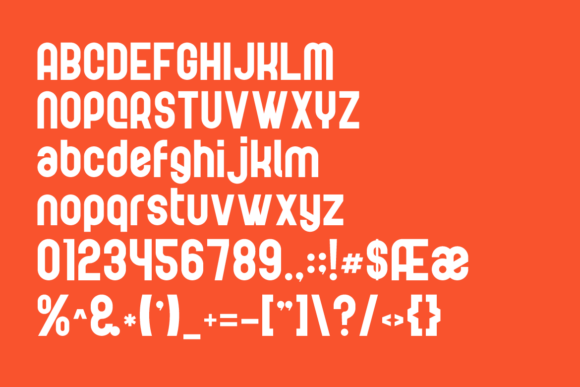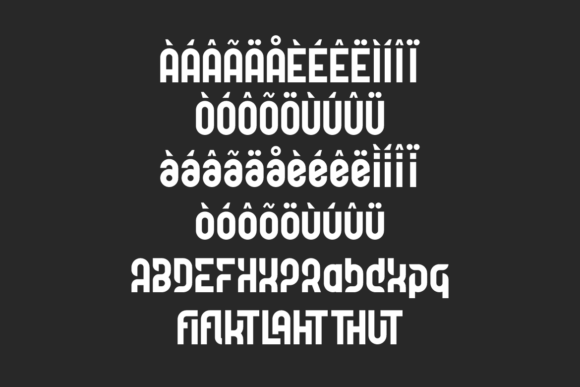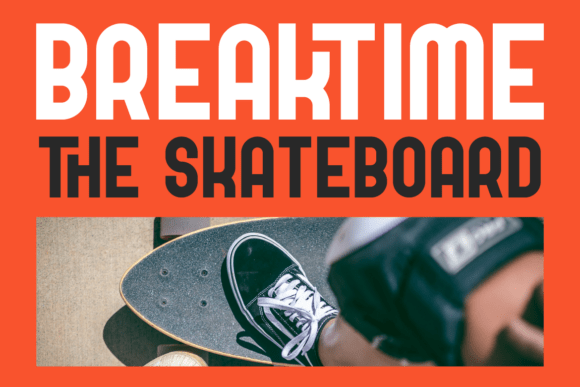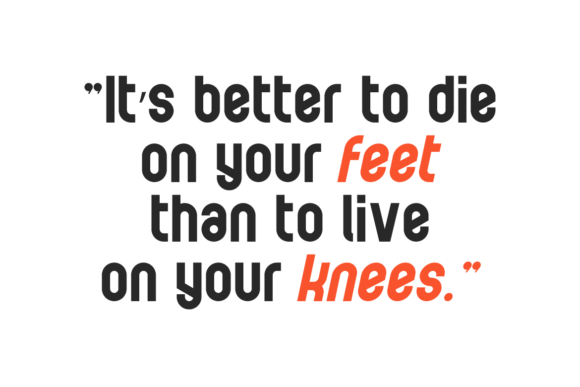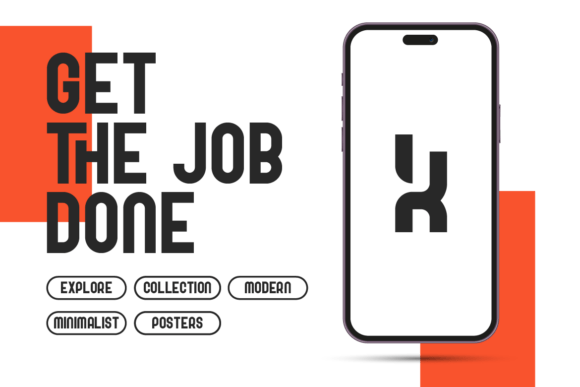
Introduction to Menante Font
Have you ever stared at a blank canvas, eager to bring your creative vision to life, only to be held back by the perfect font? For designers, this is a common struggle. A font can make or break the entire aesthetic of a project, and it’s often the last piece of the puzzle that holds everything together. That’s why discovering the right font can be a game-changer – and that’s exactly what happens when you come across the Menante Font.
With its sleek design and versatility, Menante Font has become a go-to resource for designers seeking a modern yet distinctive aesthetic. Whether you’re working on a branding project, crafting social media graphics, or designing a website, Menante Font’s smooth curves and geometric precision make it the perfect addition to your design arsenal.
Key Features of Menante Font
- High-quality, professional design perfect for creative projects and design resources.
- Transparent background option, allowing for seamless integration with various design elements and backgrounds.
- Designed to be highly legible at various resolutions, making it suitable for use in both digital and print media.
- Features a unique, modern aesthetic that sets it apart from other fonts in its class.
- Includes a range of character sets, including uppercase and lowercase letters, numbers, and punctuation marks.
Honest Review: Menante Font
- ✨ The Menante Font is incredibly versatile, suitable for a wide range of creative projects, from modern websites to elegant print materials.
- ✨ The font’s high quality is evident in its crisp, clean lines and sophisticated aesthetic.
- ✨ One of the standout features of the Menante Font is its ability to seamlessly integrate with transparent backgrounds, making it perfect for designers who want to create visually striking designs.
- ⚠️ The font’s character set is somewhat limited, which may not be ideal for designers who need to support multiple languages.
- ⚠️ Some users may find the font’s default spacing a bit tight, which can affect readability in certain contexts.
Overall, I’m thoroughly impressed with the Menante Font. While it’s not without its limitations, its high quality and versatility make it a valuable addition to any designer’s toolkit. If you’re looking for a reliable, free design resource, the Menante Font is definitely worth checking out.